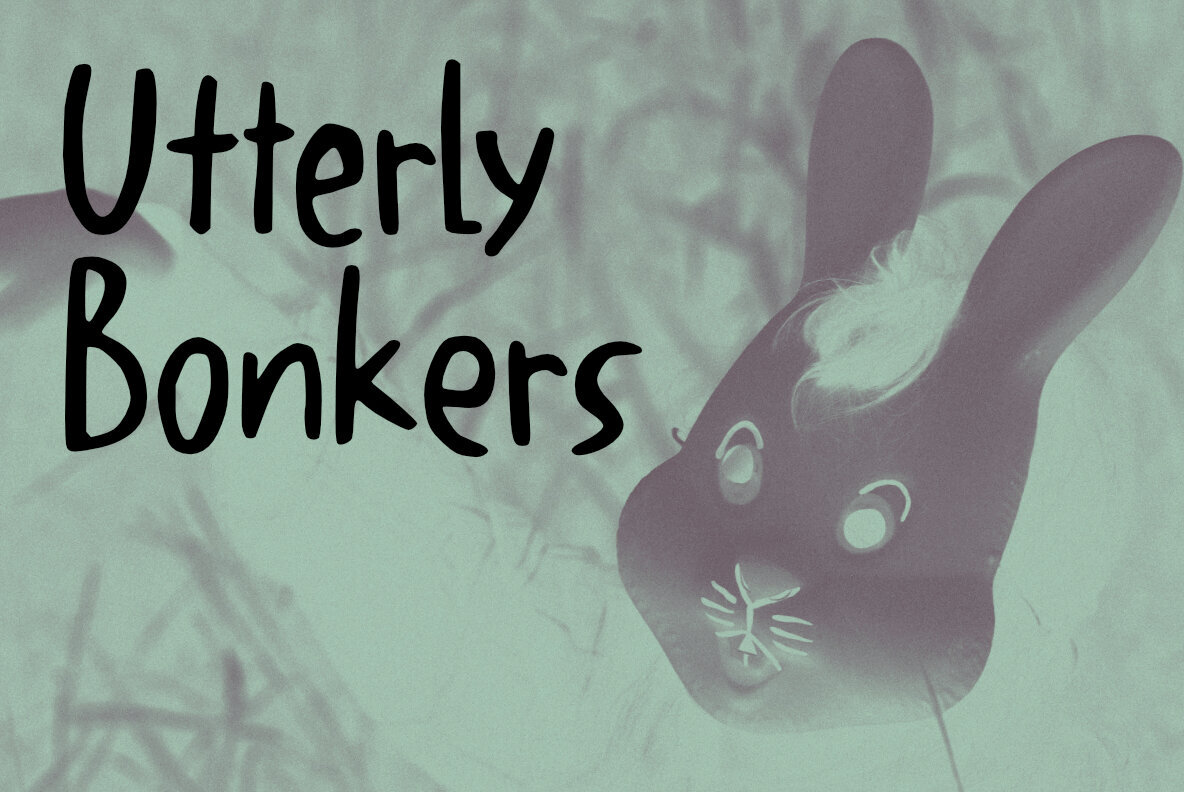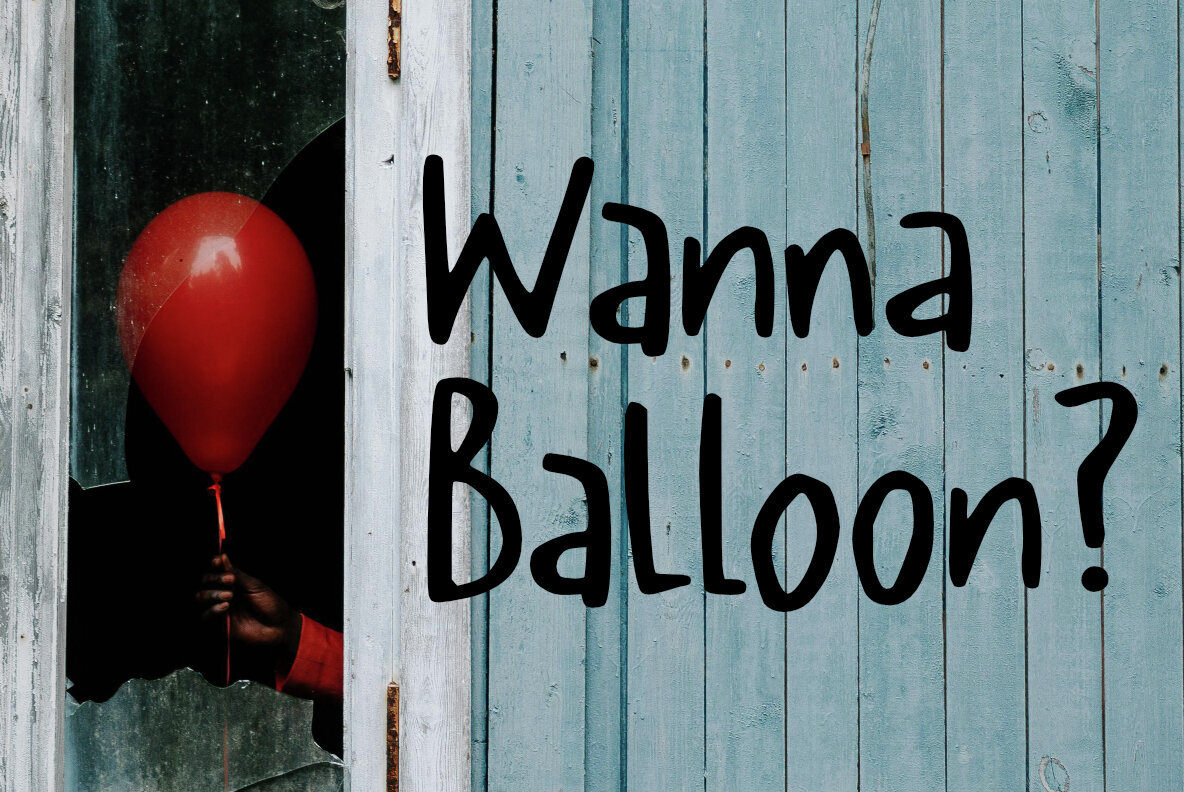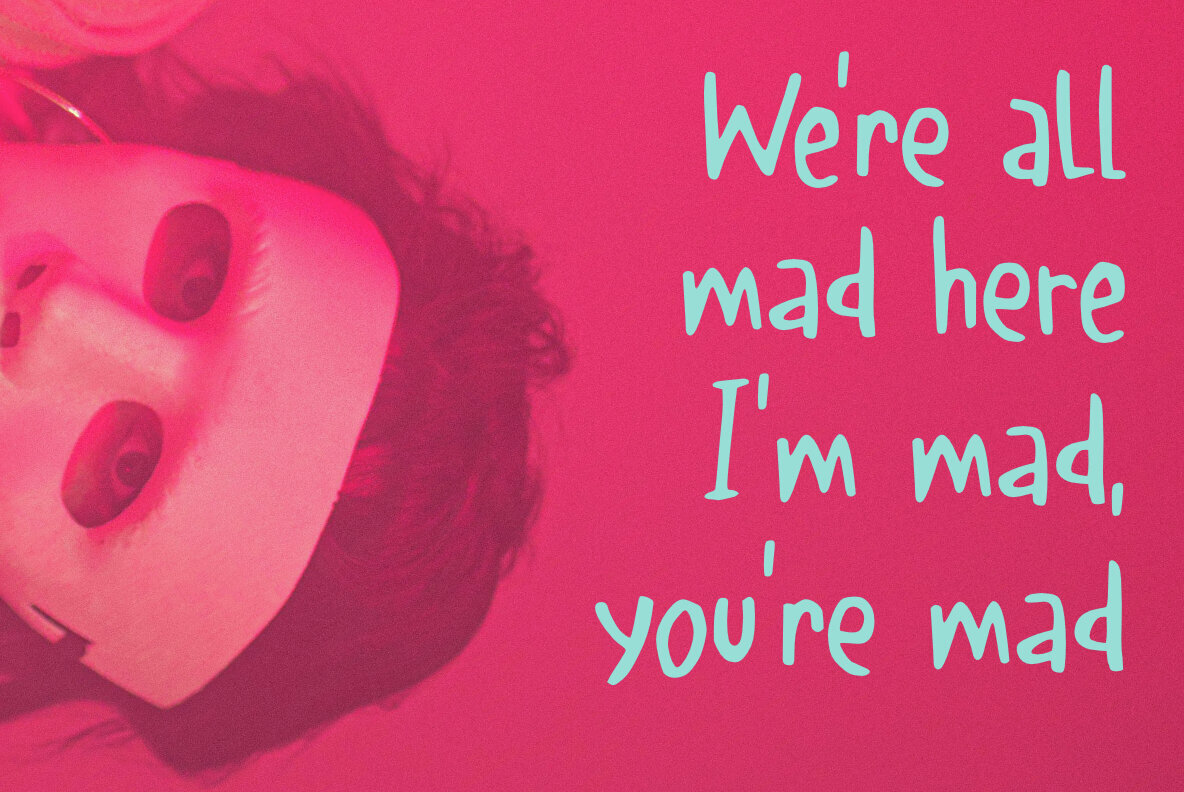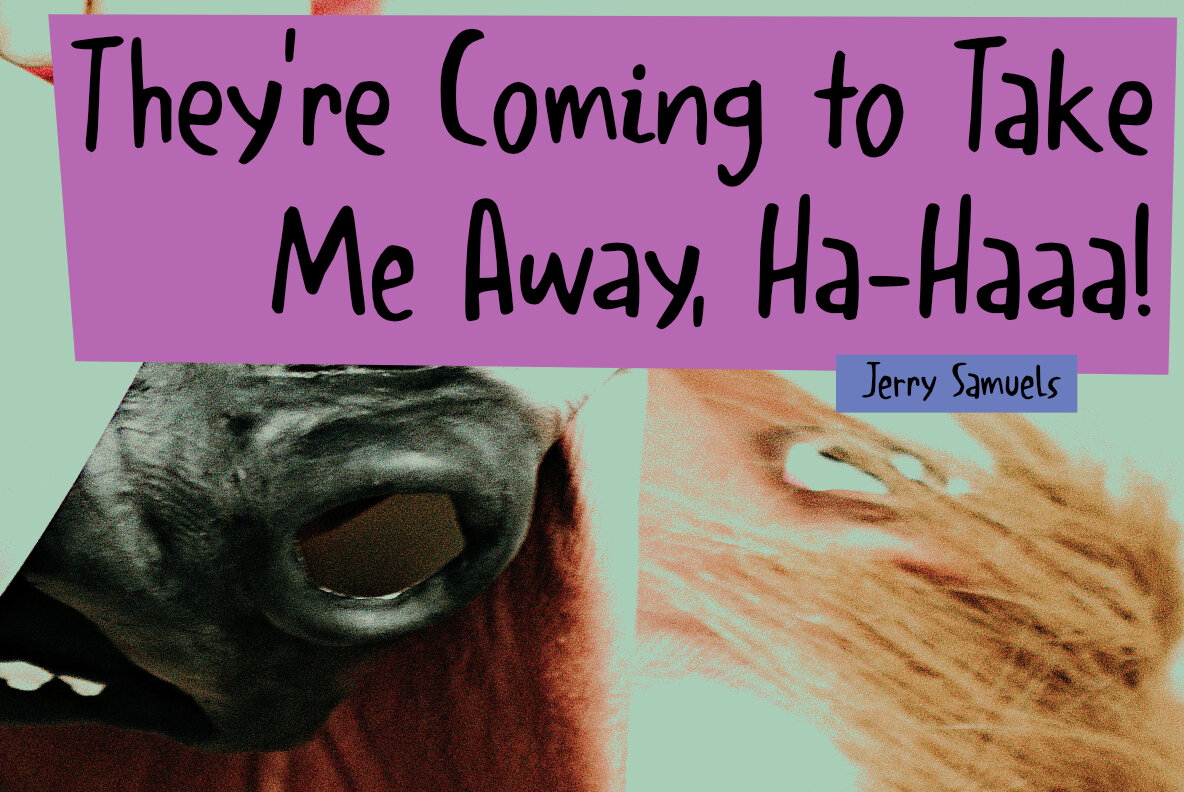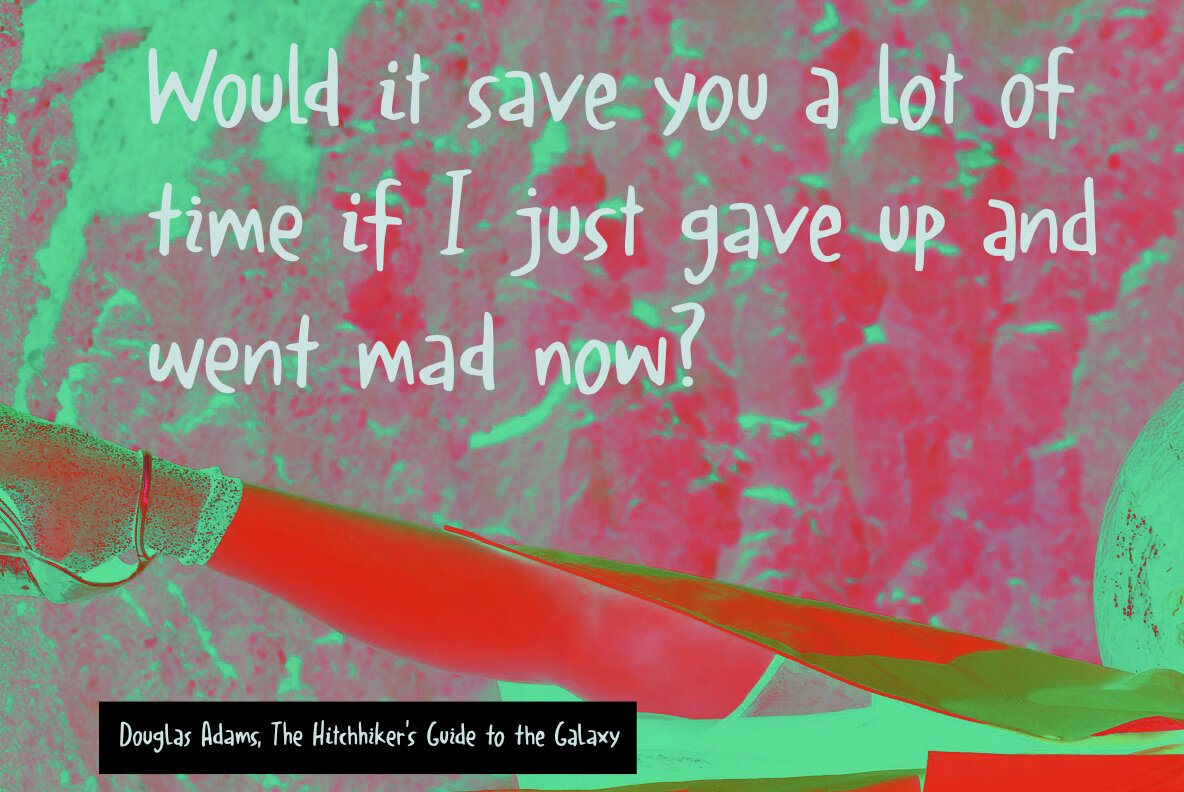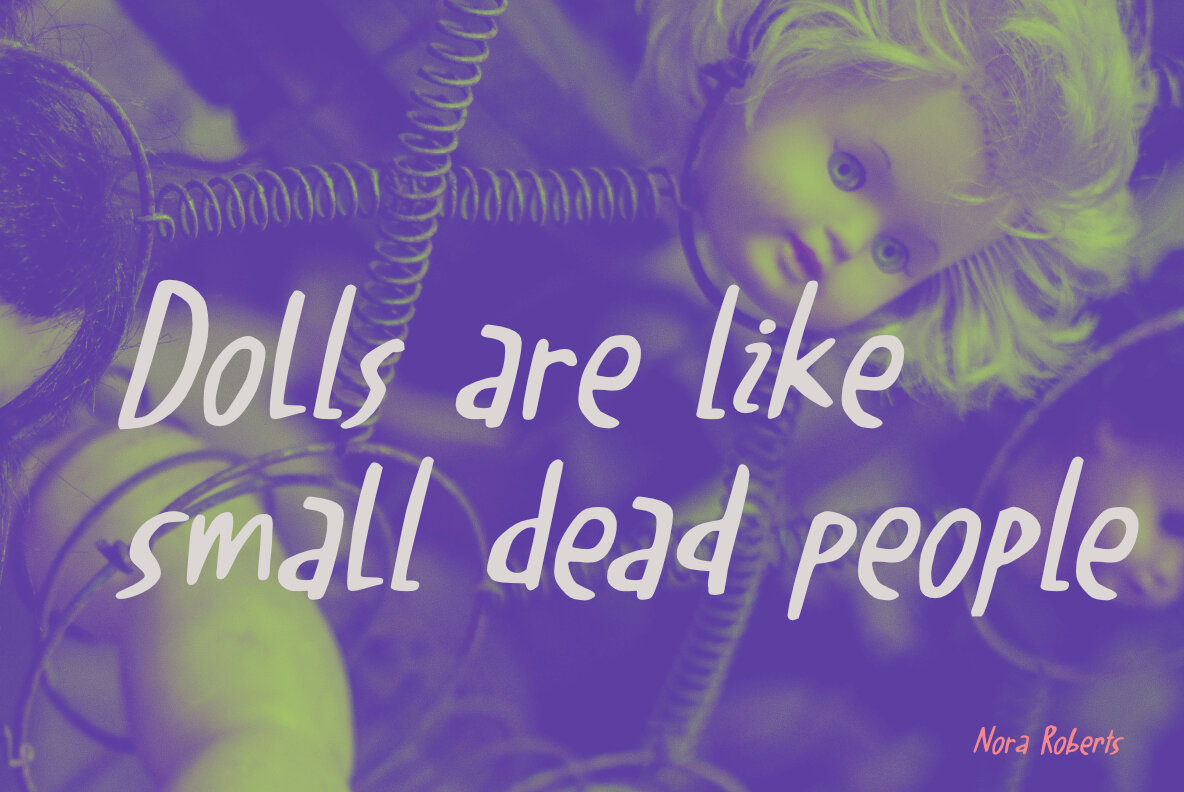
Utterly Bonkers Font
Utterly Bonkers Regular
Utterly Bonkers Italic
Dive into creativity with Utterly Bonkers, where the quintessential British phrase 'completely crazy' comes to life. Drawing inspiration from the whimsical world of Douglas Adams' "The Hitchhiker's Guide to the Galaxy," this typeface embodies the delightful chaos found in its pages. Designed with a humble marker pen on rugged paper, Utterly Bonkers brings a touch of artistry to your projects.Introducing Utterly Bonkers